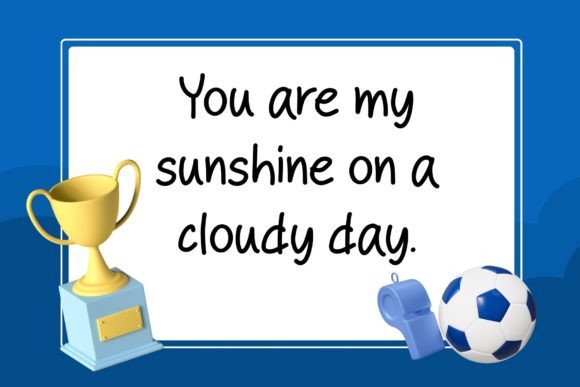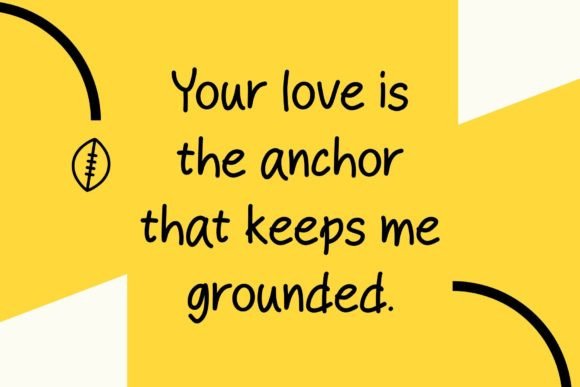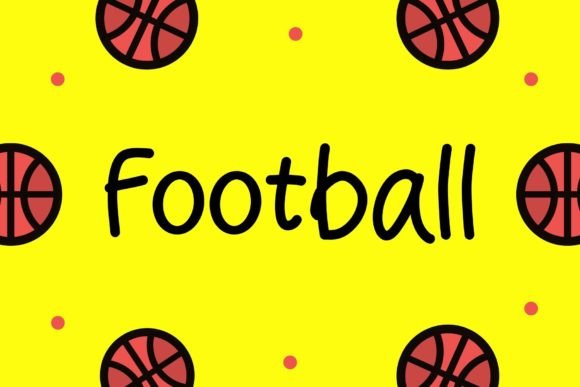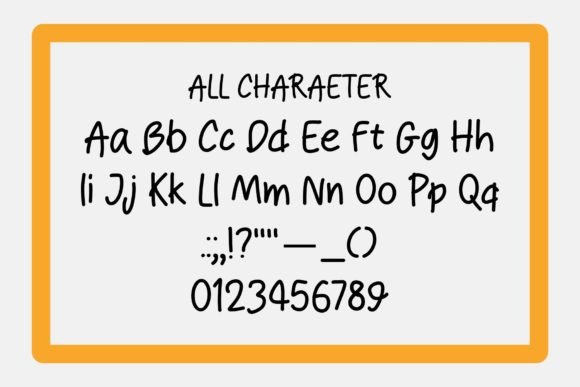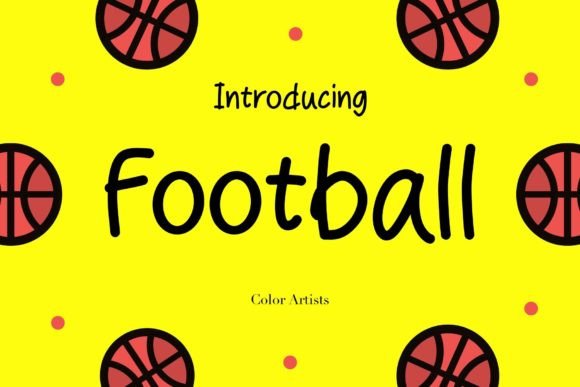
Ignite the Passion for Football in Your Designs with Football Font
Are you a designer, crafty enthusiast, or sports fan looking to add a touch of excitement and energy to your projects? Look no further than Football Font, a dynamic and energetic typeface specially crafted to capture the essence of the beautiful game. With Football Font, you can bring a sense of camaraderie and passion for football to your designs, making them stand out from the crowd.
The Perfect Font for Football-Themed Designs
Football Font is designed to evoke the thrill and excitement of the game, with bold and dynamic lettering that’s perfect for creating eye-catching designs. Whether you’re working on a project for a sports brand, creating merchandise for a football team, or simply want to add a touch of football flair to your craft projects, Football Font is the perfect choice.
Key Features of Football Font
- Dynamic and Energetic Design: Football Font is designed to capture the energy and excitement of the game, with bold and dynamic lettering that’s sure to grab attention.
- Perfect for Football-Themed Designs: Whether you’re working on a project for a sports brand, creating merchandise for a football team, or simply want to add a touch of football flair to your craft projects, Football Font is the perfect choice.
- High-Quality Design: Football Font is designed to high standards, ensuring that your designs look professional and polished.
- Create Eye-Catching Headlines: Use Football Font to create bold and eye-catching headlines for your designs, perfect for grabbing attention and adding a touch of excitement.
- Add Football Flair to Your Crafts: Add a touch of football flair to your craft projects, such as t-shirts, hats, and other sports-themed items.
- Design Sports-Themed Merchandise: Use Football Font to create sports-themed merchandise, such as jerseys, stickers, and other promotional items.
Benefits of Using Football Font
There are many benefits to using Football Font in your designs. Here are just a few:
- Adds Excitement and Energy: Football Font adds a touch of excitement and energy to your designs, perfect for capturing the passion and enthusiasm of football fans.
- Creates a Sense of Camaraderie: Football Font helps to create a sense of camaraderie and shared passion among football fans, making it perfect for sports-themed designs.
- Stand Out from the Crowd: Football Font is a unique and dynamic typeface that’s sure to make your designs stand out from the crowd.
If you’re looking to add a touch of excitement and energy to your designs, look no further than Football Font. This dynamic and energetic typeface is specially crafted to capture the essence of the beautiful game, making it perfect for football-themed designs. With its bold and dynamic lettering, Football Font is sure to ignite the passion for football in your designs and bring a sense of camaraderie and excitement to your projects.
Get Ready to Score Big with Football Font!